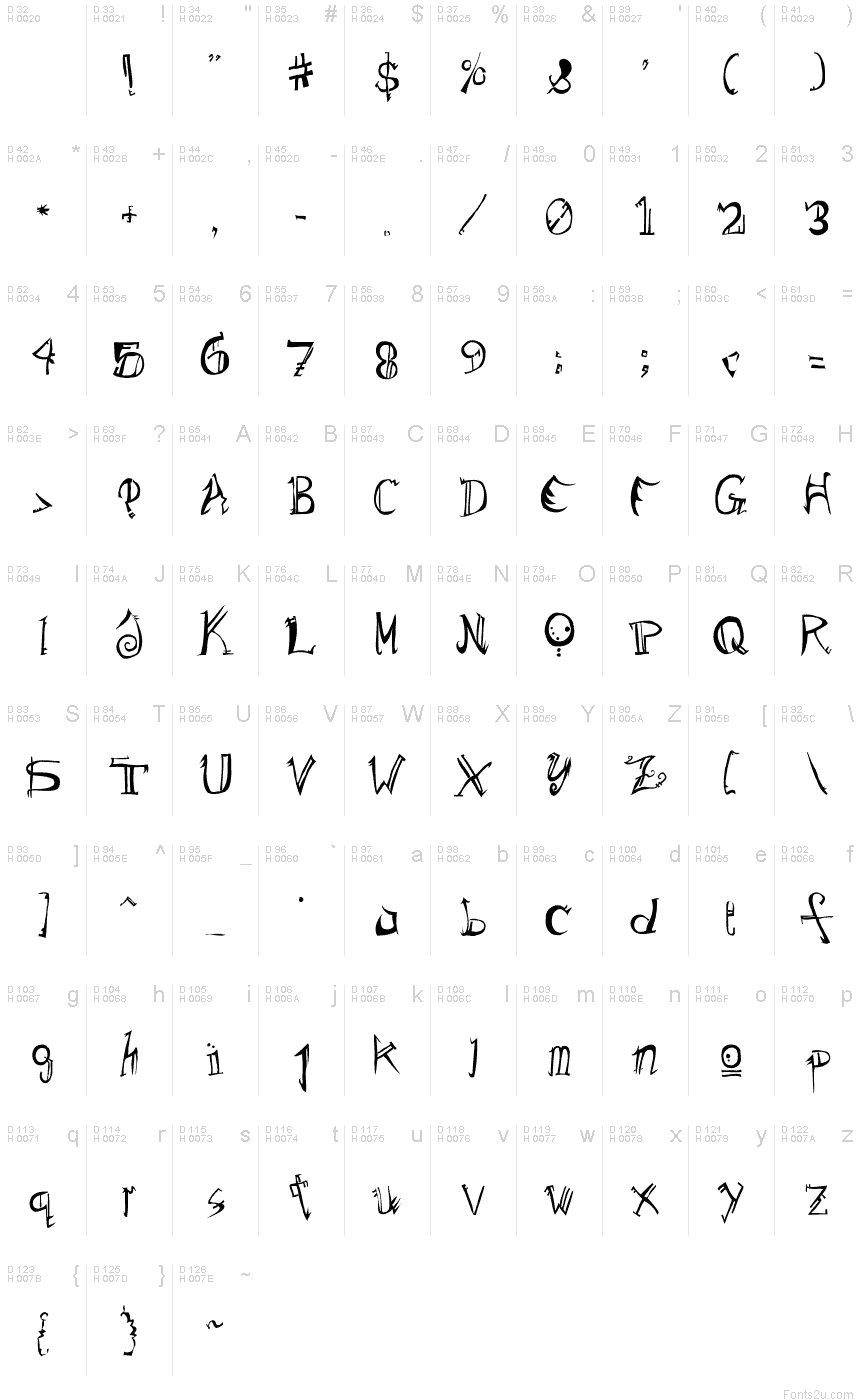
Alles Klar Highly Seriffed
Alles Klar Highly Seriffed font by Vulnavia Phibes is a free distorted display typeface that looks like it was scratched onto paper with a sharp, inky pen. Tall, spindly letters sway at odd angles, with exaggerated spikes and quirky curves that feel a little haunted and a little mischievous. It carries a handmade, slightly chaotic rhythm that instantly sets an eerie, off-kilter mood.
Using Alles Klar Highly Seriffed, you can push horror posters, occult zines, witchy branding, Halloween party invites, haunted house flyers, and dark album covers into stranger territory. This free font works best as a large, attention-grabbing title, supported by a calm, clean sans serif for body copy so the wild letterforms stay striking and legible.